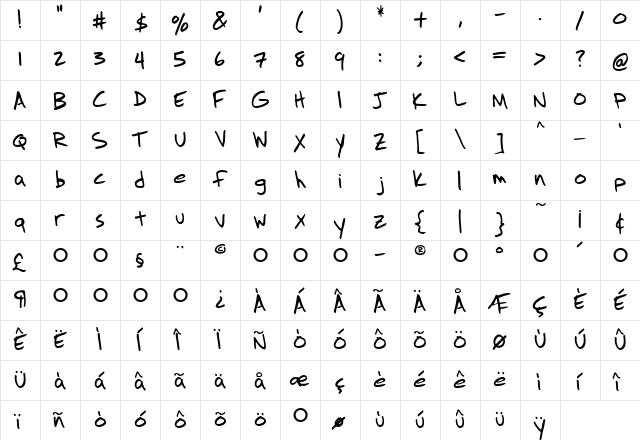
Printhouse Medium
Design Context for Printhouse Typeface
Printhouse is a composed and adaptable typeface that performs quietly and consistently across a wide range of design contexts.